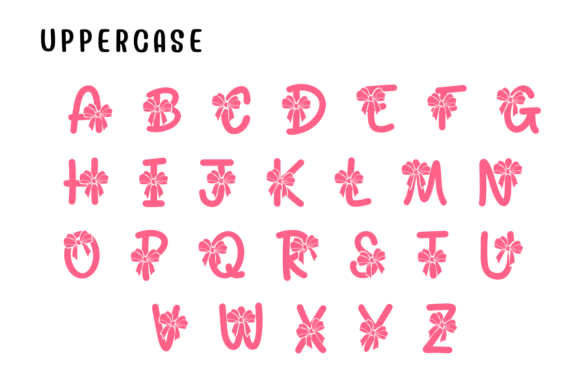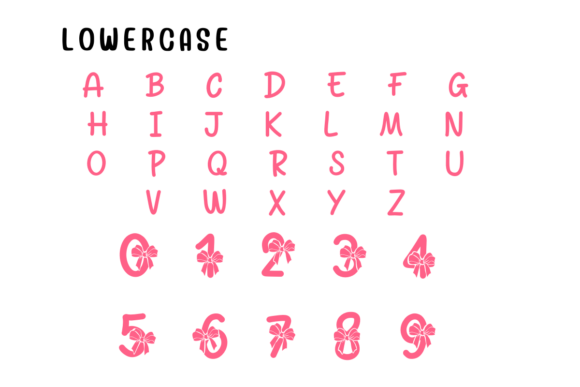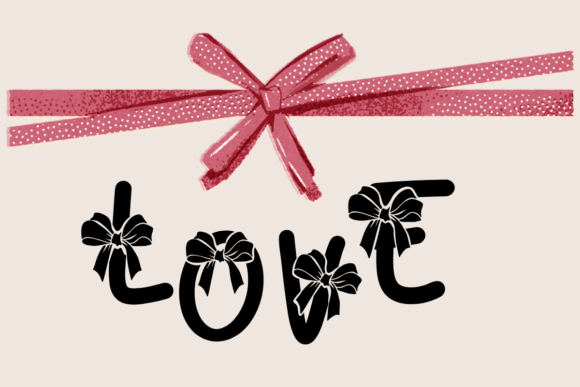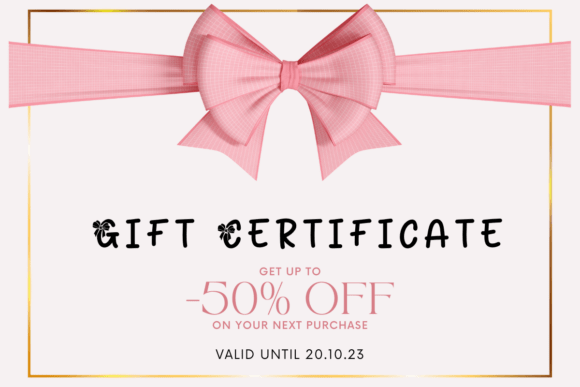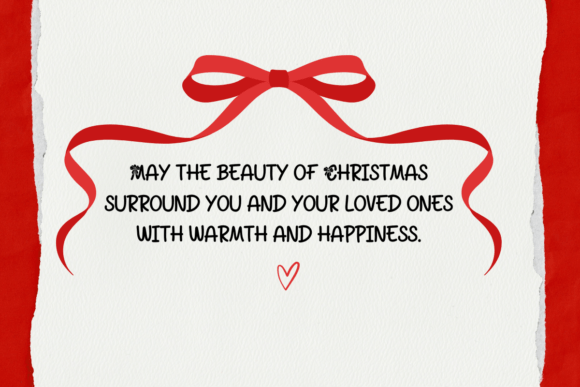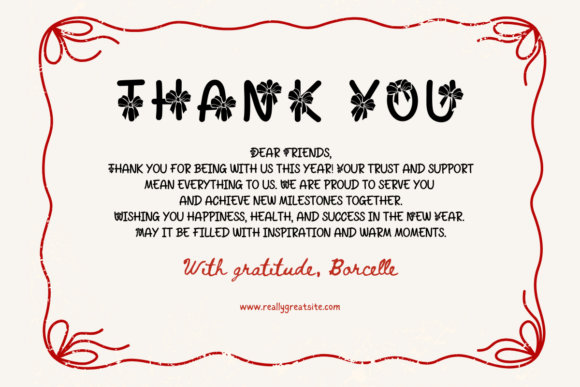
Crafting Cuteness: The Magic of Cute Bow Font
Who hasn’t been inspired by a child’s scribbled handwriting or a hand-tied gift package with a bow? The sweet simplicity of these everyday moments can spark a creative idea. For designers, the quest for the perfect font to match this charm can be a challenge. That’s where Cute Bow Font comes in – a delightful decorative font designed to add a playful twist to your designs.
This charming font features bold letterforms adorned with adorable bows, perfect for girly branding, packaging, and holiday crafts. Its sweet, fun, and full of personality, making it ideal for making any design pop with cuteness. With Cute Bow Font, you can bring a touch of whimsy and warmth to your designs, elevating them to a whole new level of charm and appeal.
Cute Bow Font Key Features
- Font Family: Cute Bow Font is a custom font family designed for a variety of uses.
- Unique Characteristics: Cute Bow Font features a playful, whimsical design with intricate details and rounded edges, making it perfect for creating a cute and friendly atmosphere.
Cute Bow Font Review
I recently had the chance to work with the Cute Bow Font, and I have to say it’s a unique addition to any design project. Here’s my honest review:
- The playful, whimsical feel of the font is perfect for creating a child-friendly or feminine vibe.
- The various bow-inspired designs add a creative touch to headings and titles.
- The font is easy to read and understand, even at smaller sizes.
- The font is quite limited in its overall character set, which may make it less suitable for longer texts.
- The bow designs can be distracting if used excessively, so it’s essential to balance them with more straightforward text.
- The font may not be the best choice for formal or professional projects, as its playful nature can come across as unprofessional.
Overall, I think the Cute Bow Font is a great addition to any design project that requires a touch of whimsy. While it has its limitations, it’s perfect for creating a unique and eye-catching visual identity. Just be mindful of how you use it to avoid overwhelming your design.
Tips for Getting the Most Out of Cute Bow Font
Use Cute Bow Font to add a playful touch to your designs. Experiment with different font sizes and colors to create a visually appealing effect.
- Birthday cards and invitations
- Wedding decorations and stationery
- Children’s party designs and accessories
Alternatives to Cute Bow Font
Pacifico Font is a beautiful script font that can be used for various designs such as wedding invitations, greeting cards, and branding. It has a similar elegant and cursive feel to Cute Bow Font, but with a more relaxed and casual tone. Pacifico Font is perfect for designs that require a touch of sophistication and whimsy.
Comparison to Cute Bow Font: Pacifico Font has a more subtle and understated look compared to Cute Bow Font, which can be too sweet and childish at times. Pacifico Font is ideal for designs that need a delicate balance of elegance and playfulness.
Carolyna Pro Font is a modern script font that can be used for various designs such as logos, branding, and advertising. It has a similar flowing and cursive feel to Cute Bow Font, but with a more contemporary and edgy tone. Carolyna Pro Font is perfect for designs that require a touch of sophistication and modernity.
Comparison to Cute Bow Font: Carolyna Pro Font has a more modern and sleek look compared to Cute Bow Font, which can be too vintage and traditional at times. Carolyna Pro Font is ideal for designs that need a bold and eye-catching look.